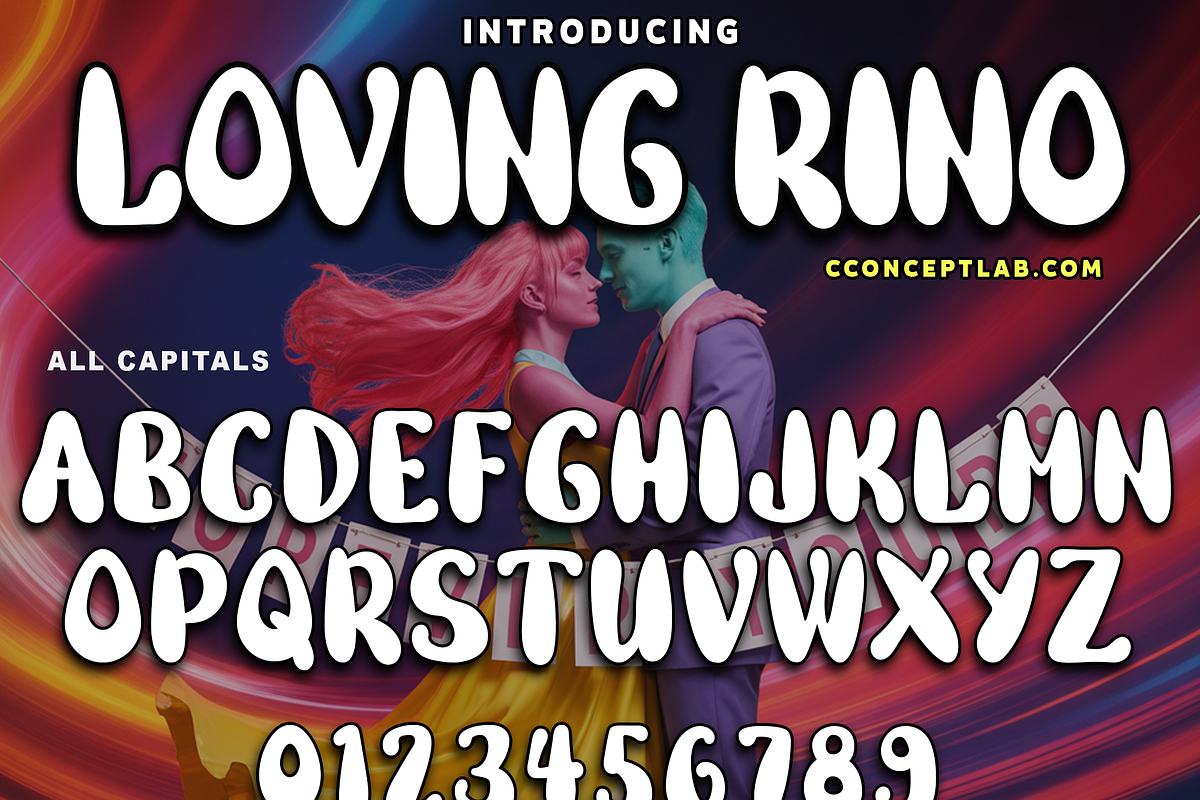
LOVING RINO
Introducing
LOVING RINO
- Groovy children inspired font perfect on your projects, covers, publishing etc.
- Lifestyle comic book theme font for branding, website, mobile app etc.
- Available in Uppercase, Numbers, Punctuations and Symbols.